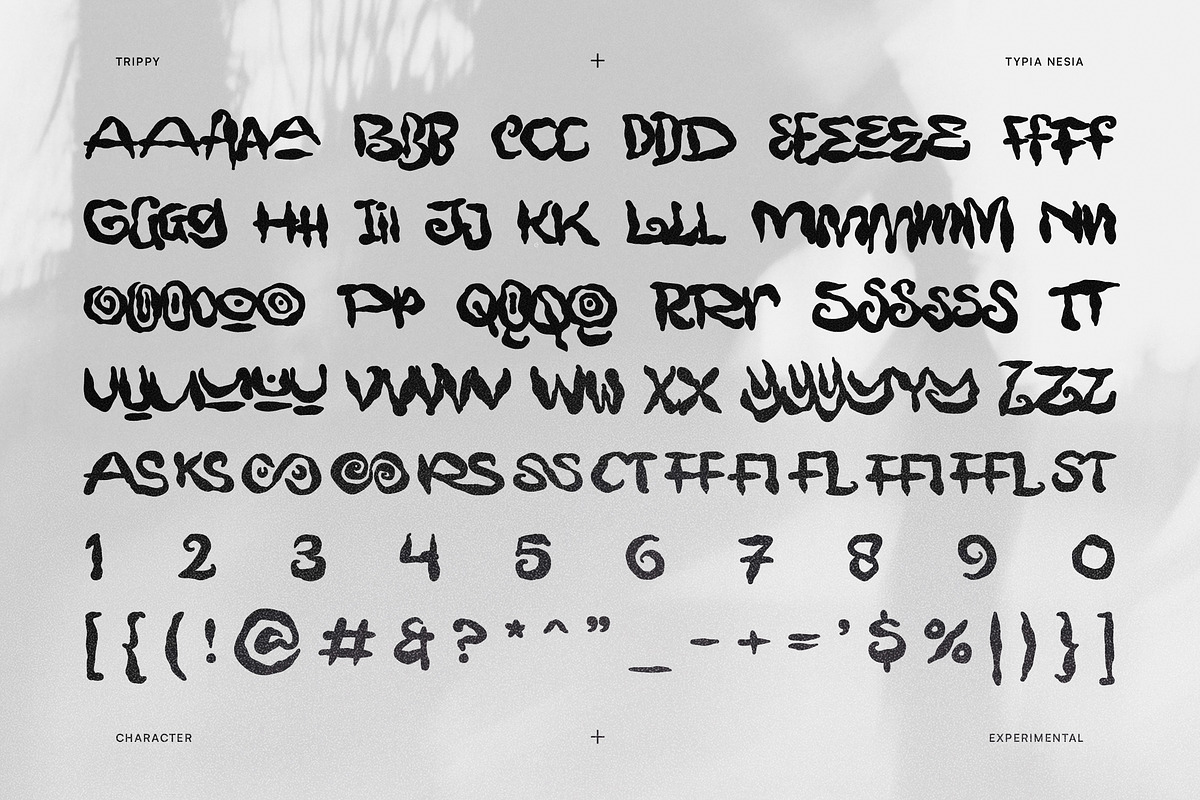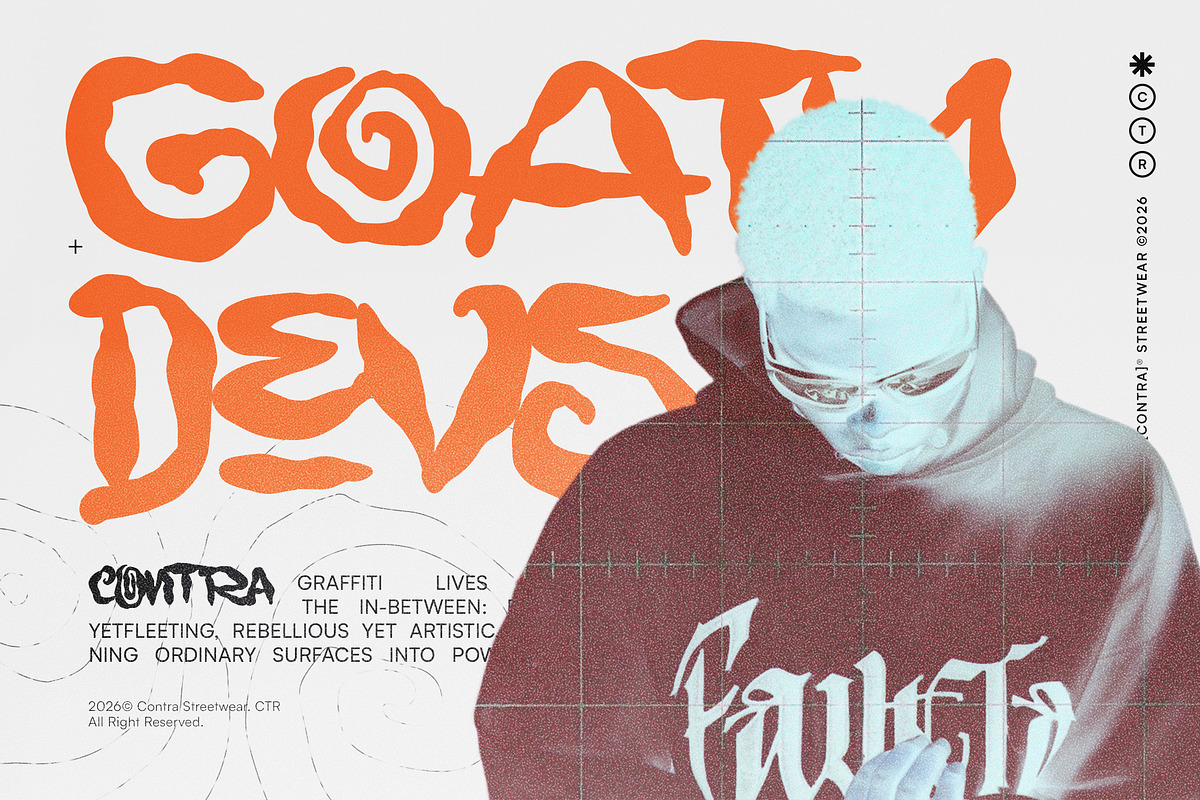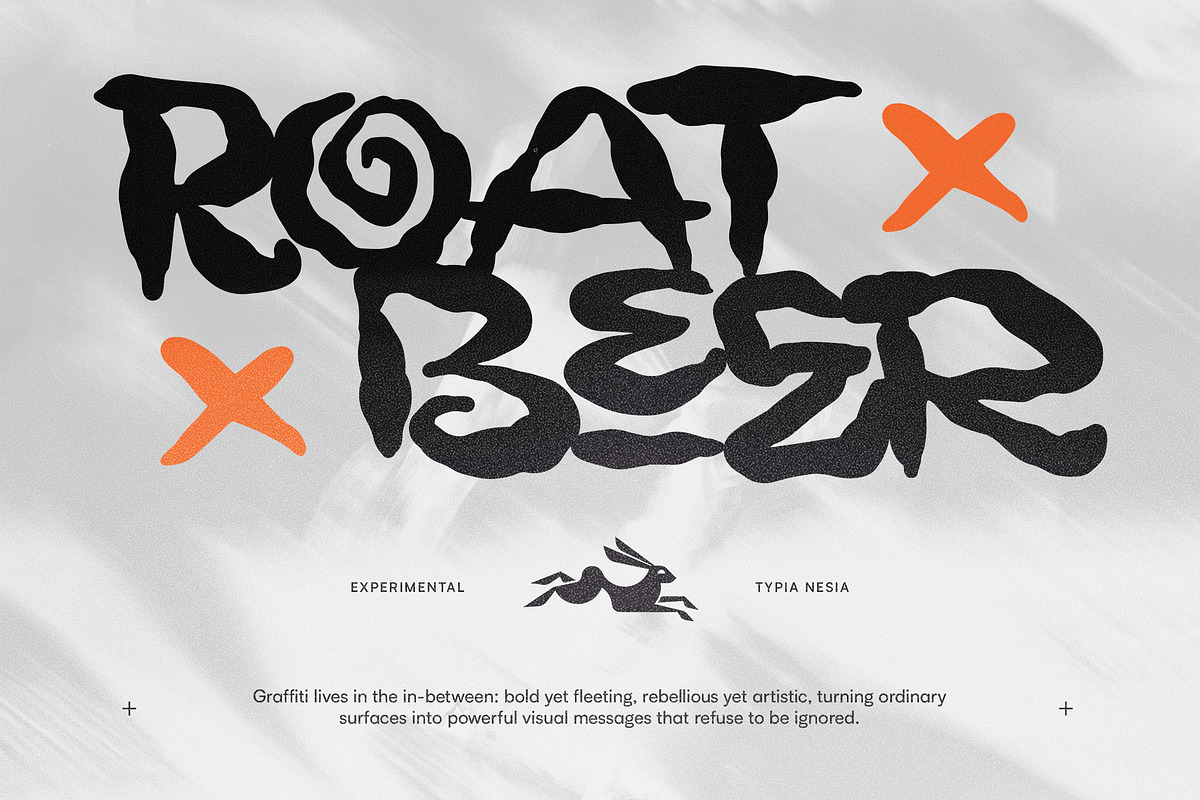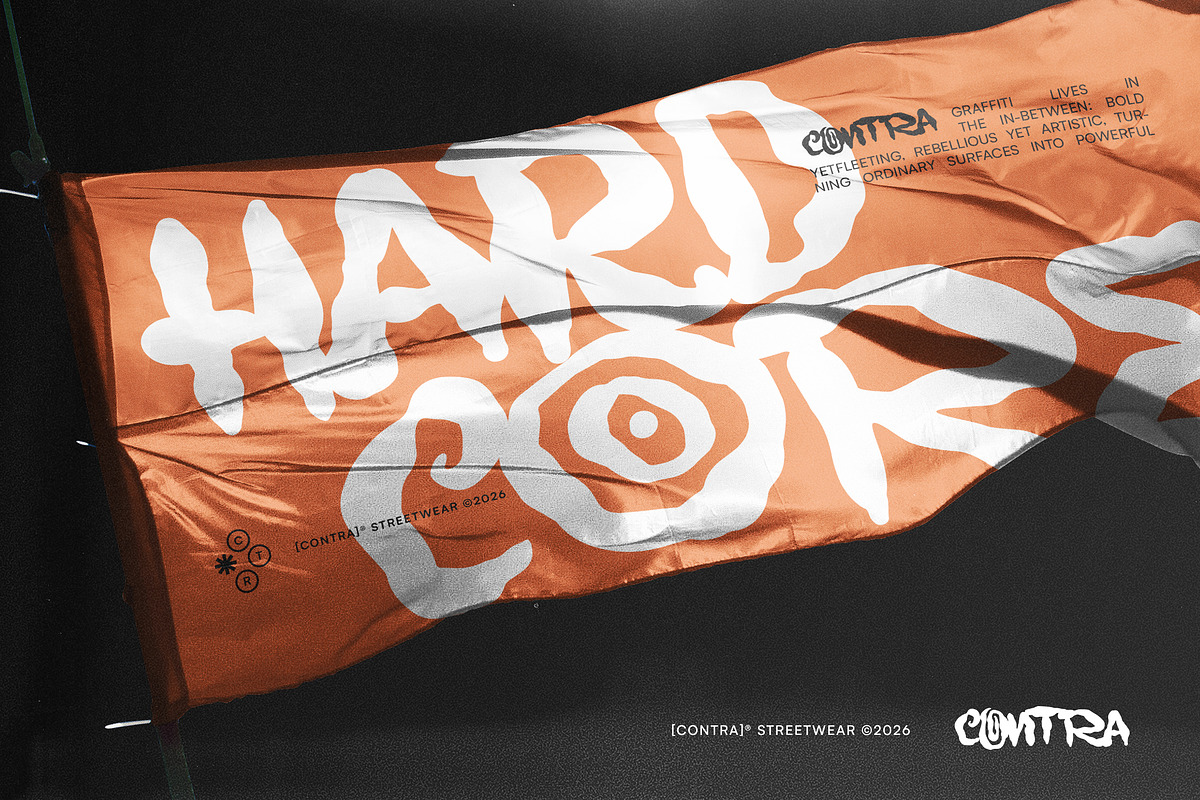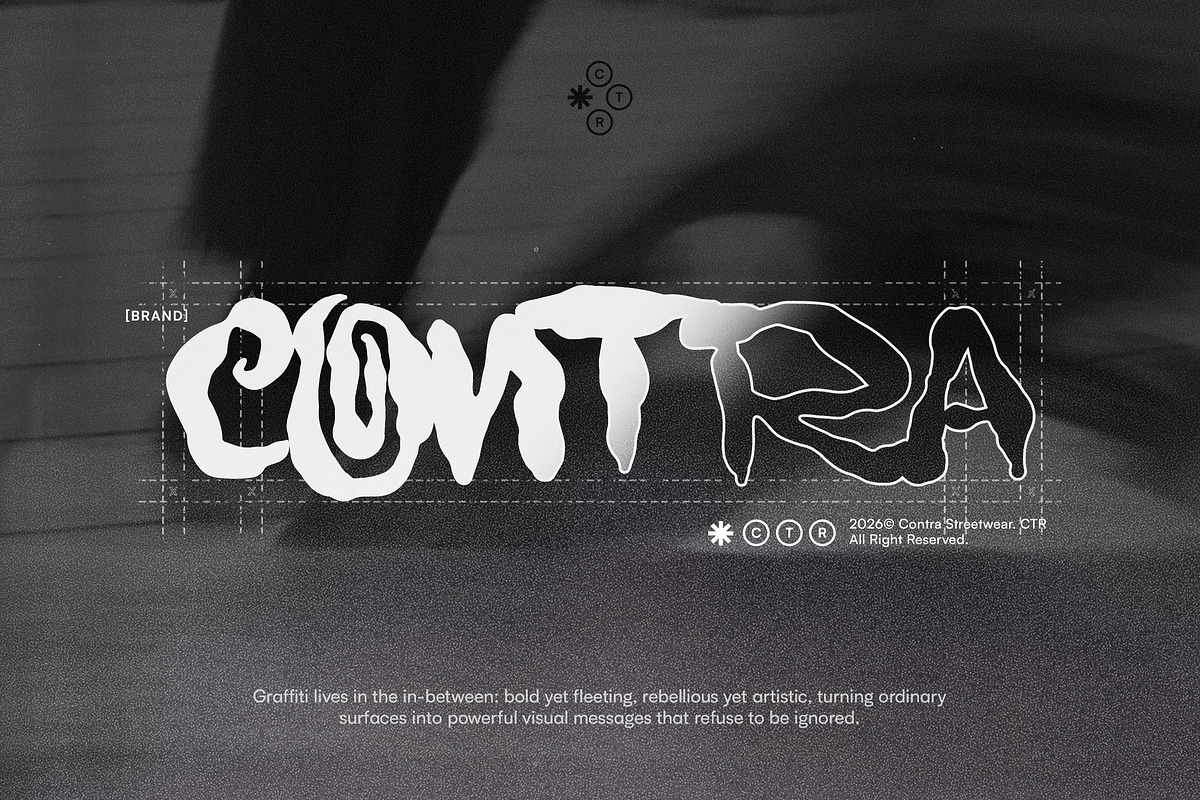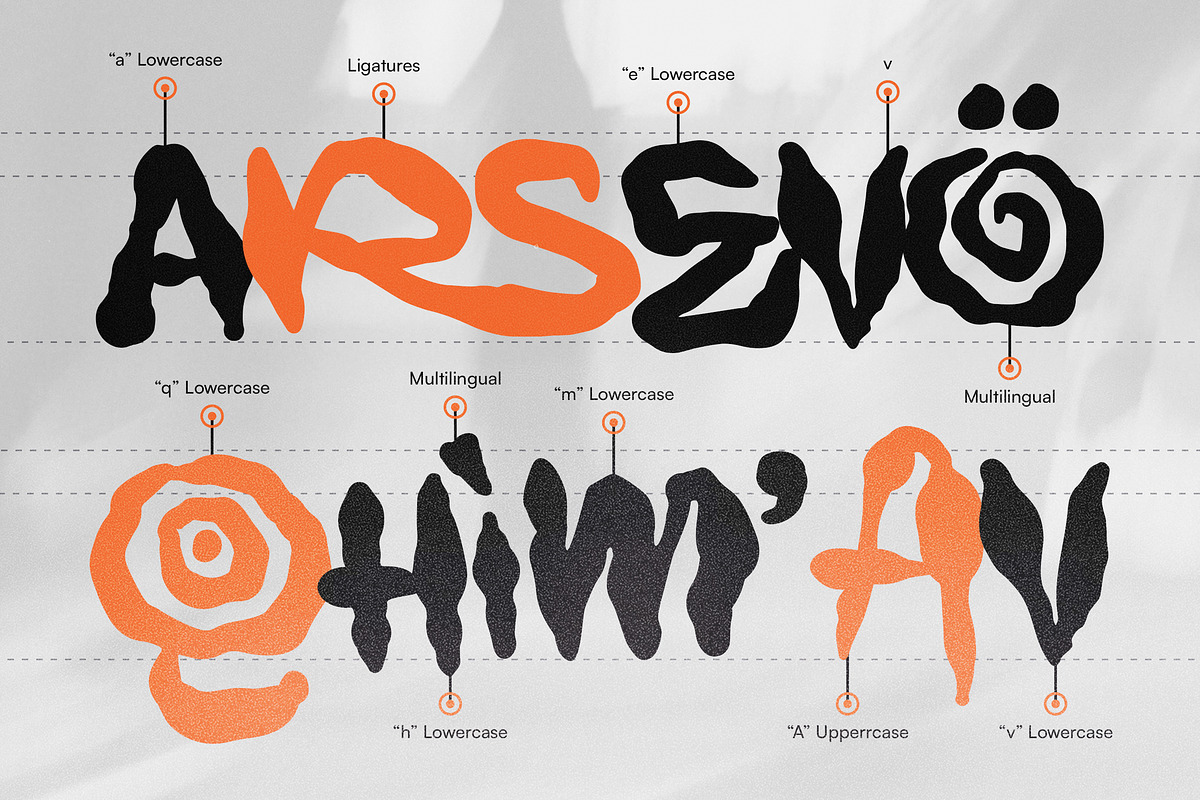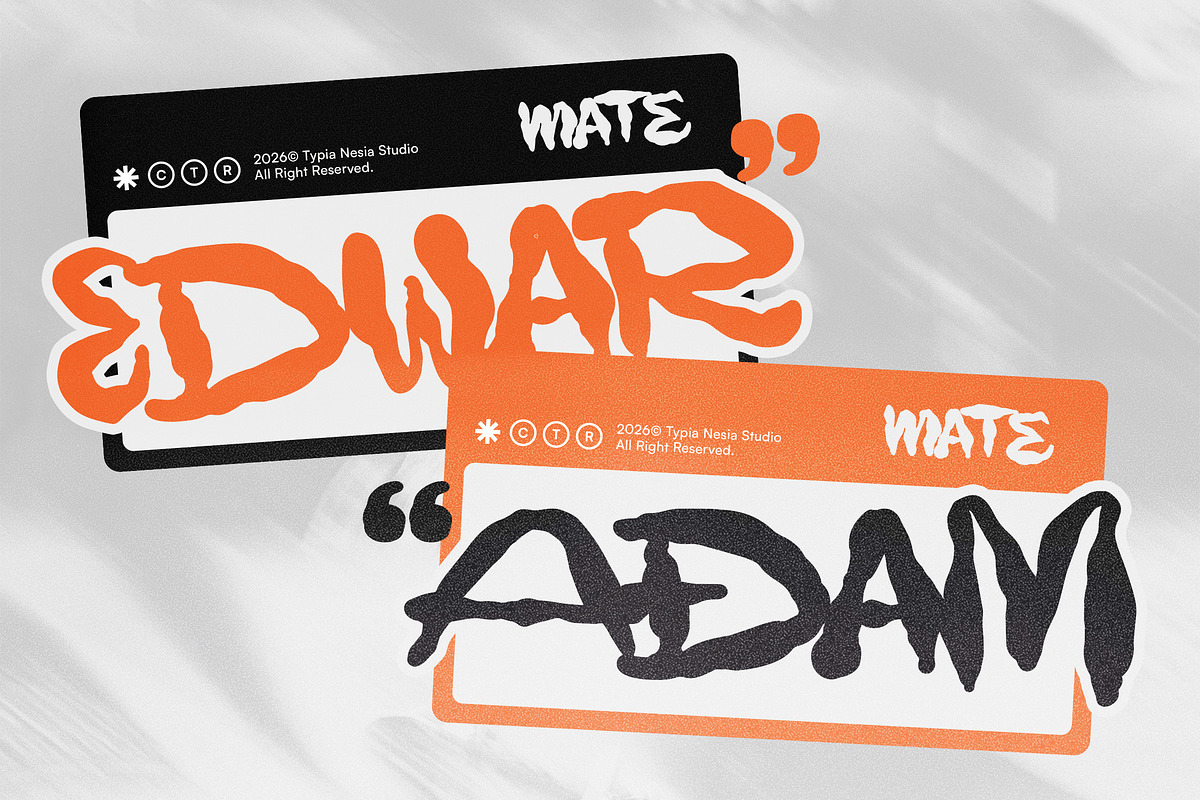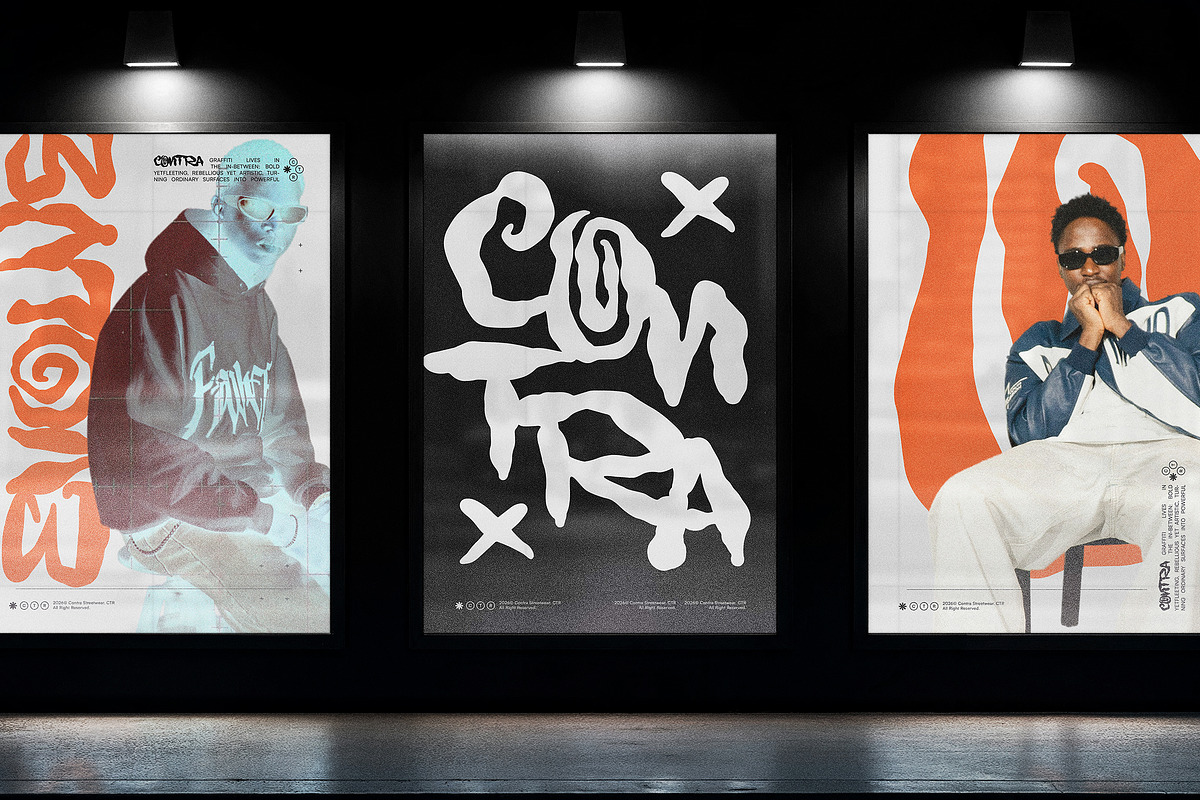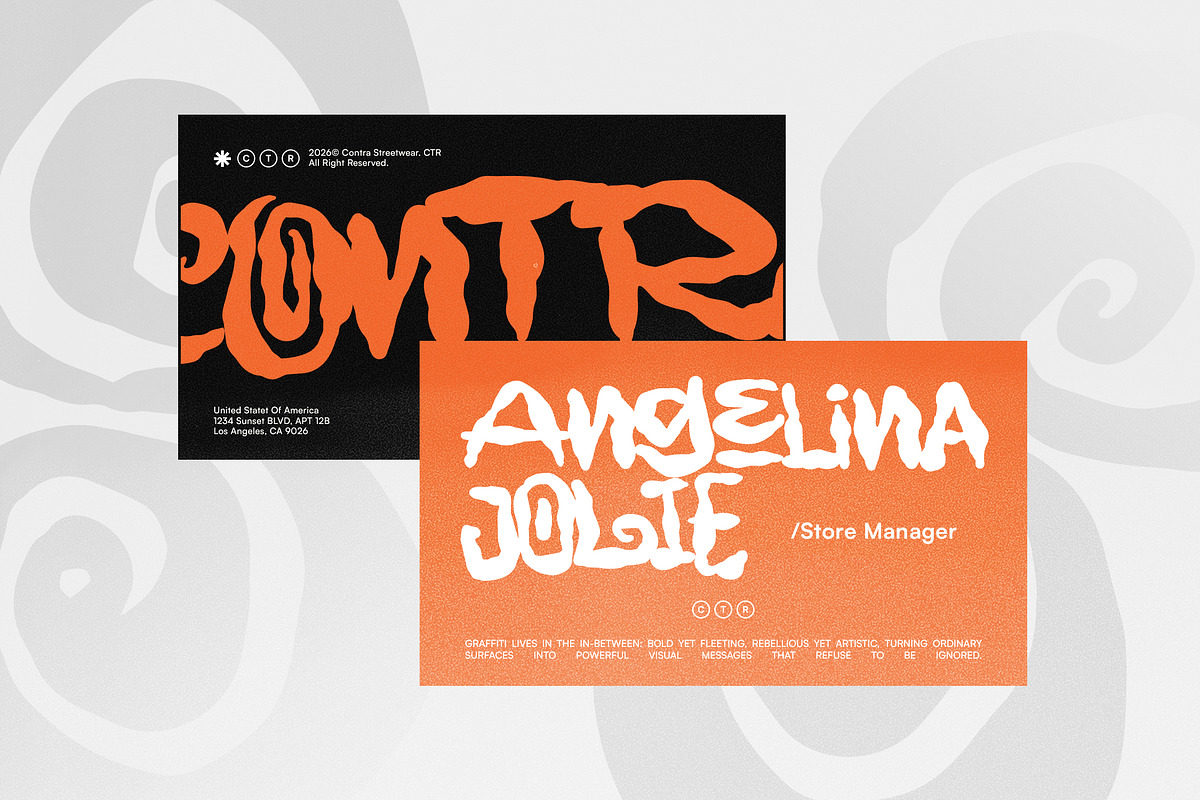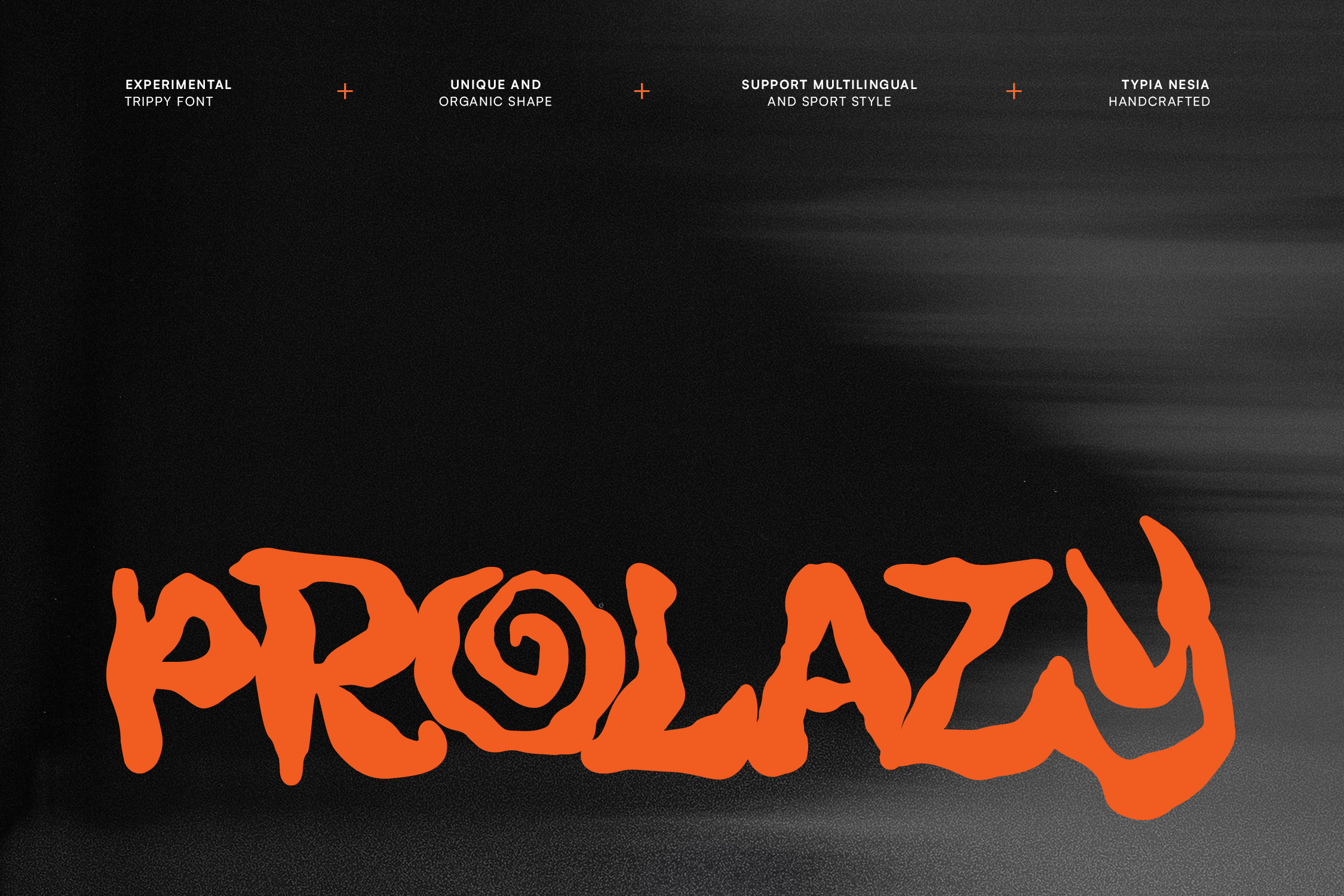
Prolazy - Experimental Graffiti Font
Prolazy - Experimental Irregular Graffiti Font - Expressive Organic Liquid Psychedelic Handwritten Font
Prolazy is an experimental, irregular, handdrawn graffiti font that breaks the rules and celebrates raw creativity. Designed with an organic and quirky flow, and inspired by psychedelic visuals and underground art scenes, Prolazy delivers a strong grunge texture with a handcrafted, organic character. Its distorted curves, playful swirls, and uneven structures create a dynamic rhythm that is perfect in logos, posters, album covers, community events, sports branding, urban merchandise and any project that demands an experimental and expressive voice from graffiti-inspired branding to edgy sports visuals and alternative music graphics.